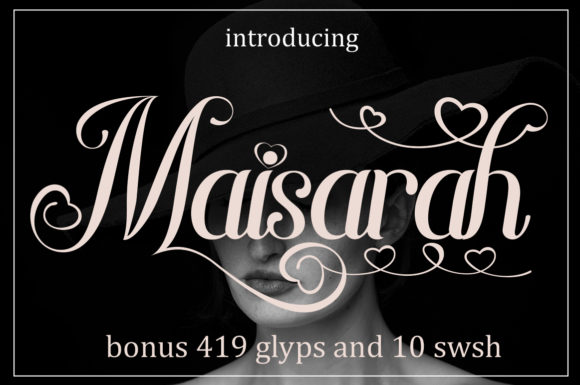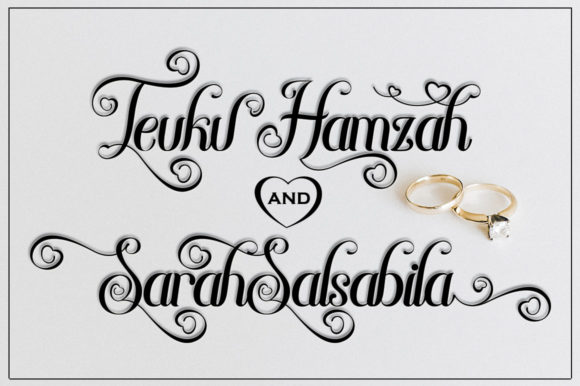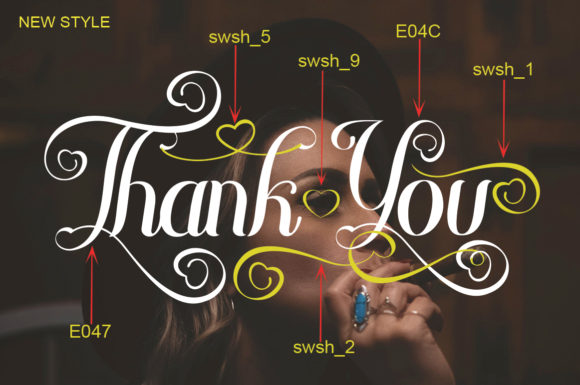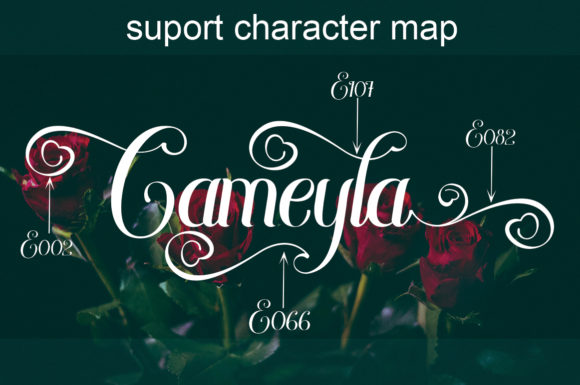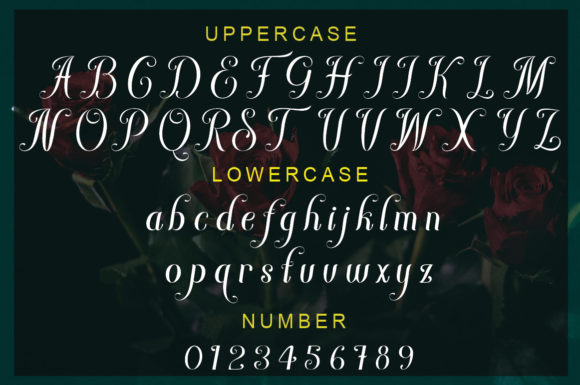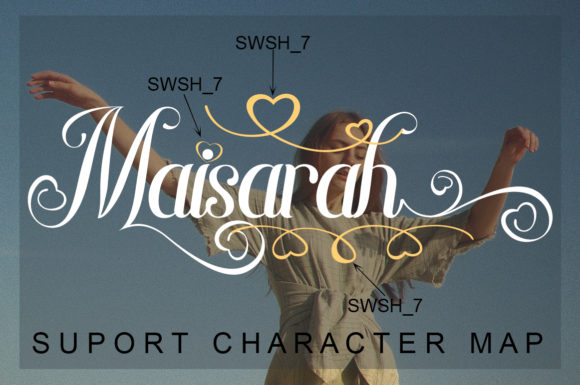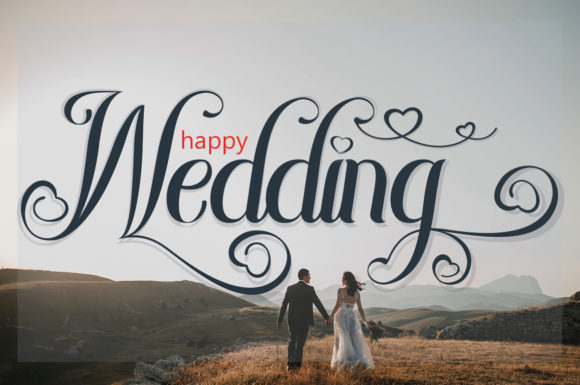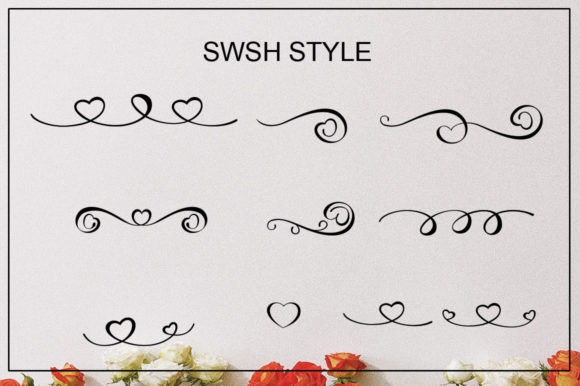
Maisarah Font
About Maisarah Font
Maisarah is a beautiful handwritten font. It features a varying baseline, smooth lines, gorgeous glyphs and stunning alternates. It will elevate a wide range of design projects to the highest level, be it branding, headings, wedding designs, invitations, signatures, logos, labels, and much more!